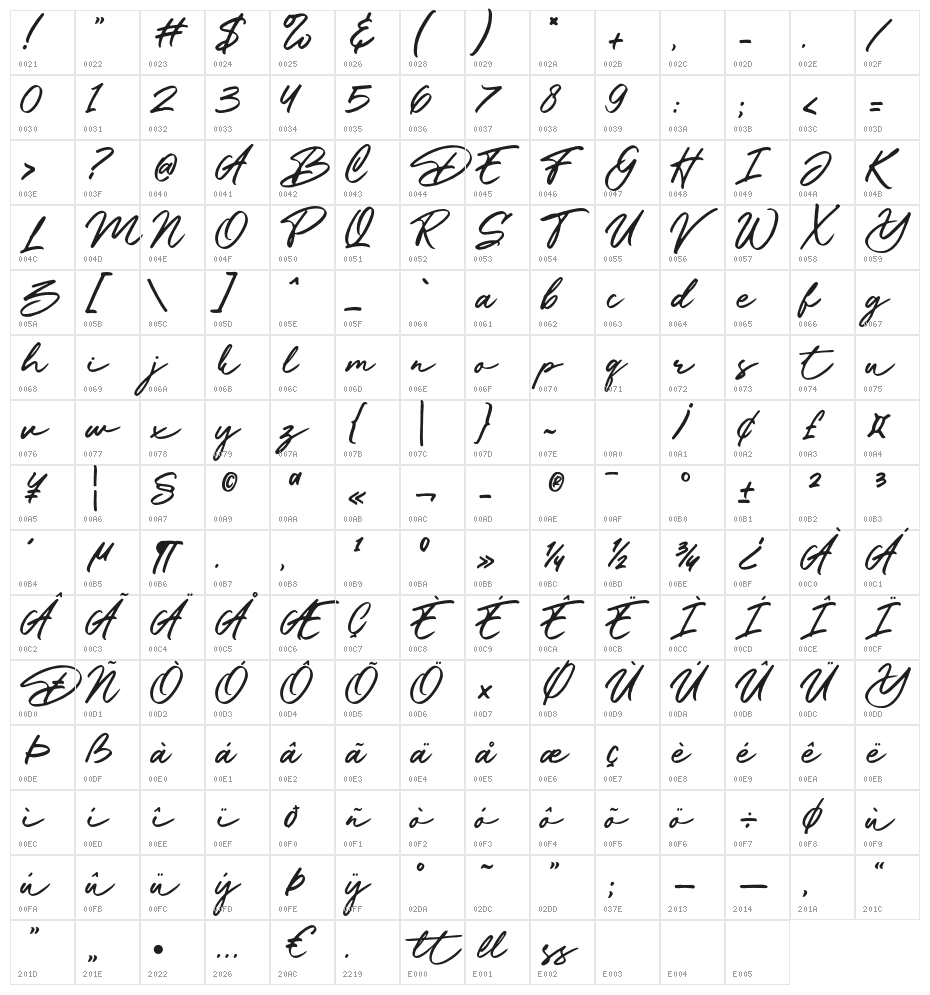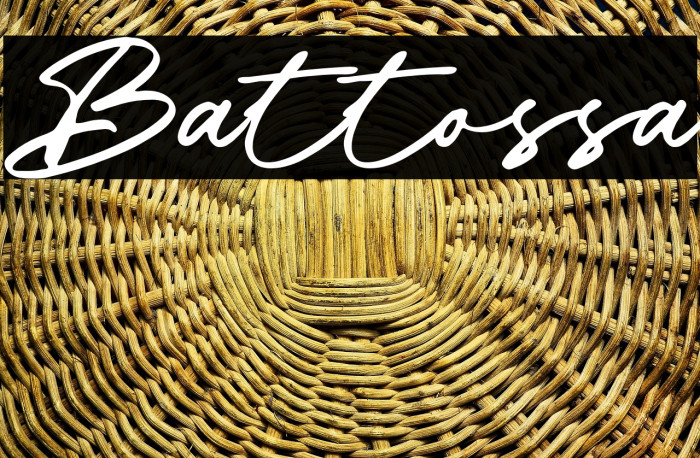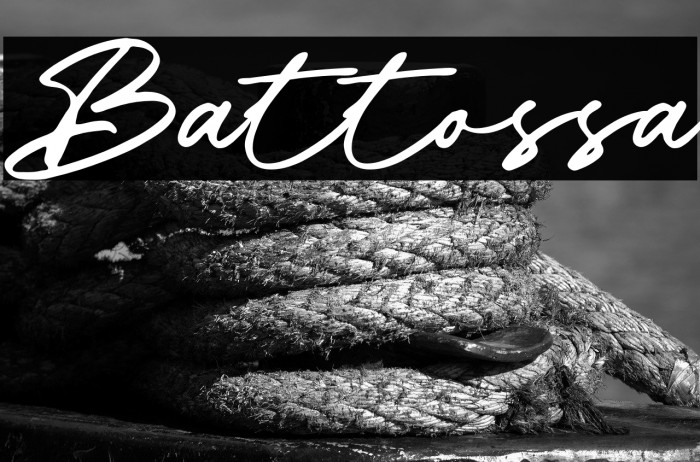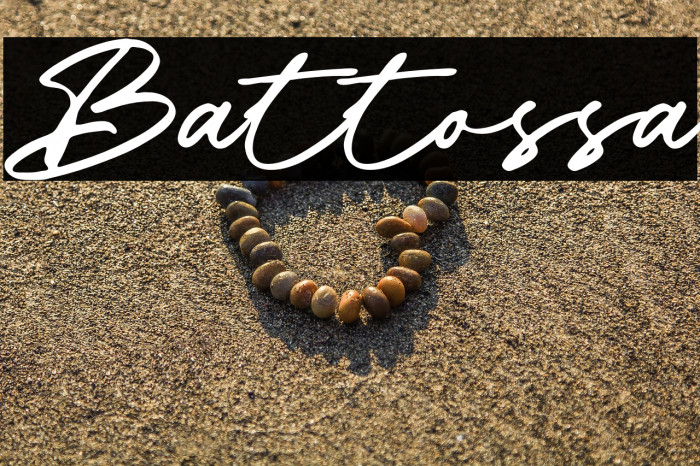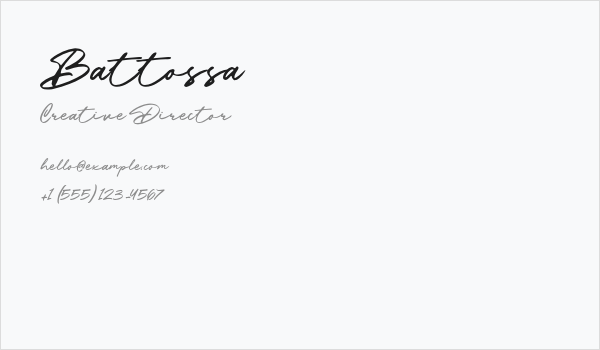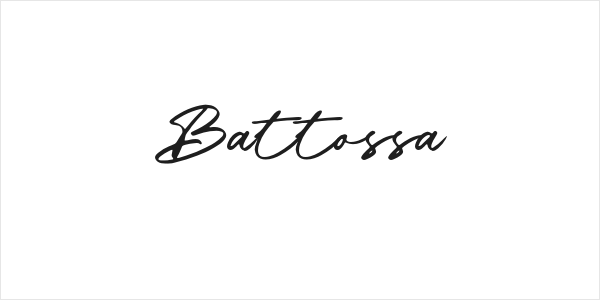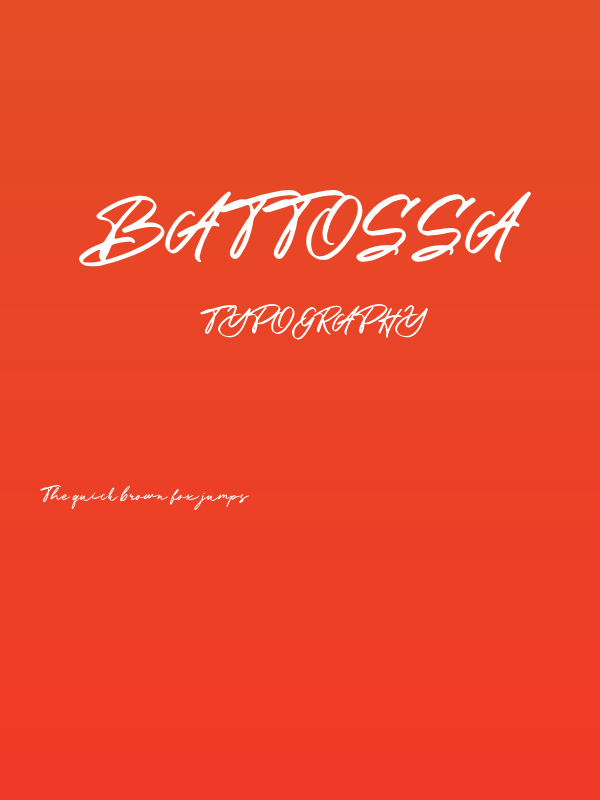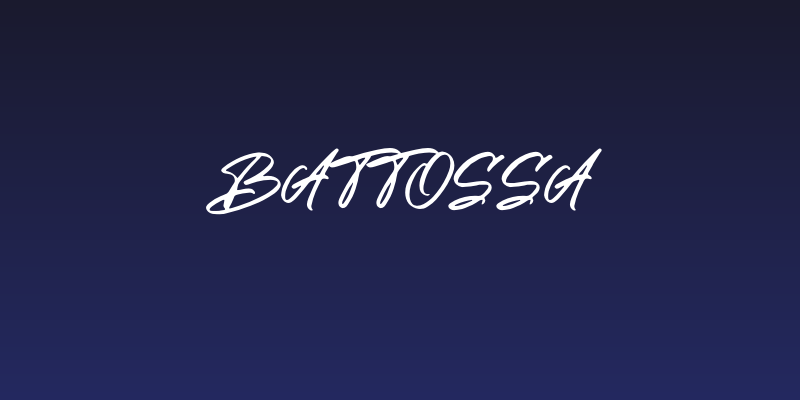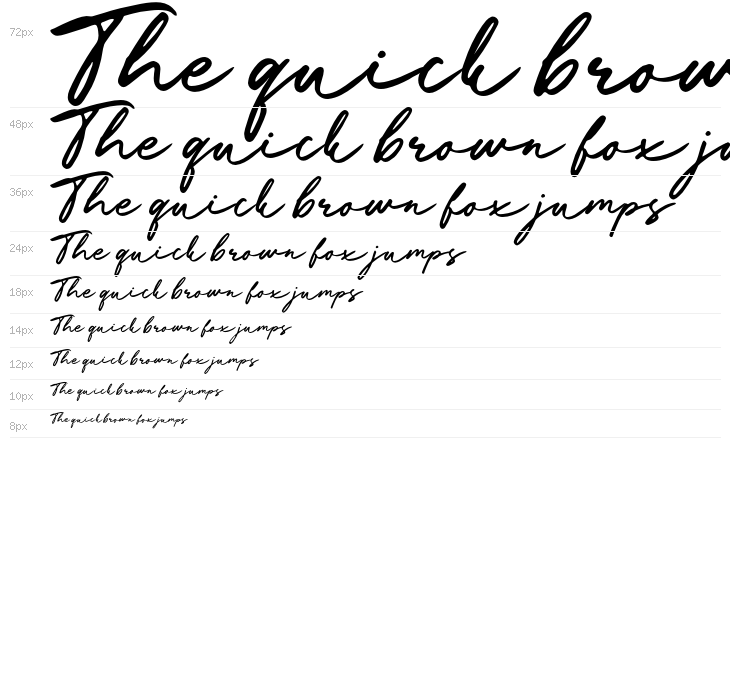
Battossa Font
Battossa Description
This font features a dynamic and fluid script style, characterized by its elegant, flowing lines and cursive letterforms. The uppercase letters are bold and expressive, with sweeping curves and loops that convey a sense of movement and grace. The lowercase letters maintain a consistent flow, enhancing readability while preserving the artistic flair. Numbers are equally stylized, with a playful yet sophisticated appearance. Special characters are seamlessly integrated, maintaining the overall aesthetic. This font exudes a sense of elegance and creativity, making it ideal for projects that require a personal touch.
| Overall Style | Elegant |
| Use Case | Logos, Invitations, Decorative text |
| Proposed Projects | Ideal for wedding invitations, greeting cards, branding, and logo design. |